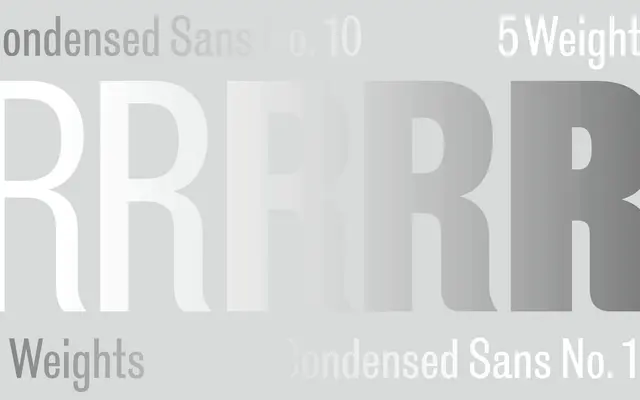
Condensed Sans No.10
A revival of Stephenson Blake & Co.'s Condensed Sans Serif No.10, drawn directly from the Sheffield foundry's 14-point metal type cut.
The design takes Stephenson Blake & Co.'s nineteenth-century Condensed Sans Serif No.10 as its source, with A2-Type describing the approach as free-spirited rather than strictly faithful. Five weights run from Regular to Black, all maintaining the tight, upright proportions that defined the original metal cut. Without italics, it is oriented towards display and headline work where condensed grotesque letterforms are needed with period character.
A condensed grotesque sans-serif revival drawn from Stephenson Blake & Co.'s Victorian-era metal type, retaining the upright, tight proportions characteristic of nineteenth-century condensed grotesques.